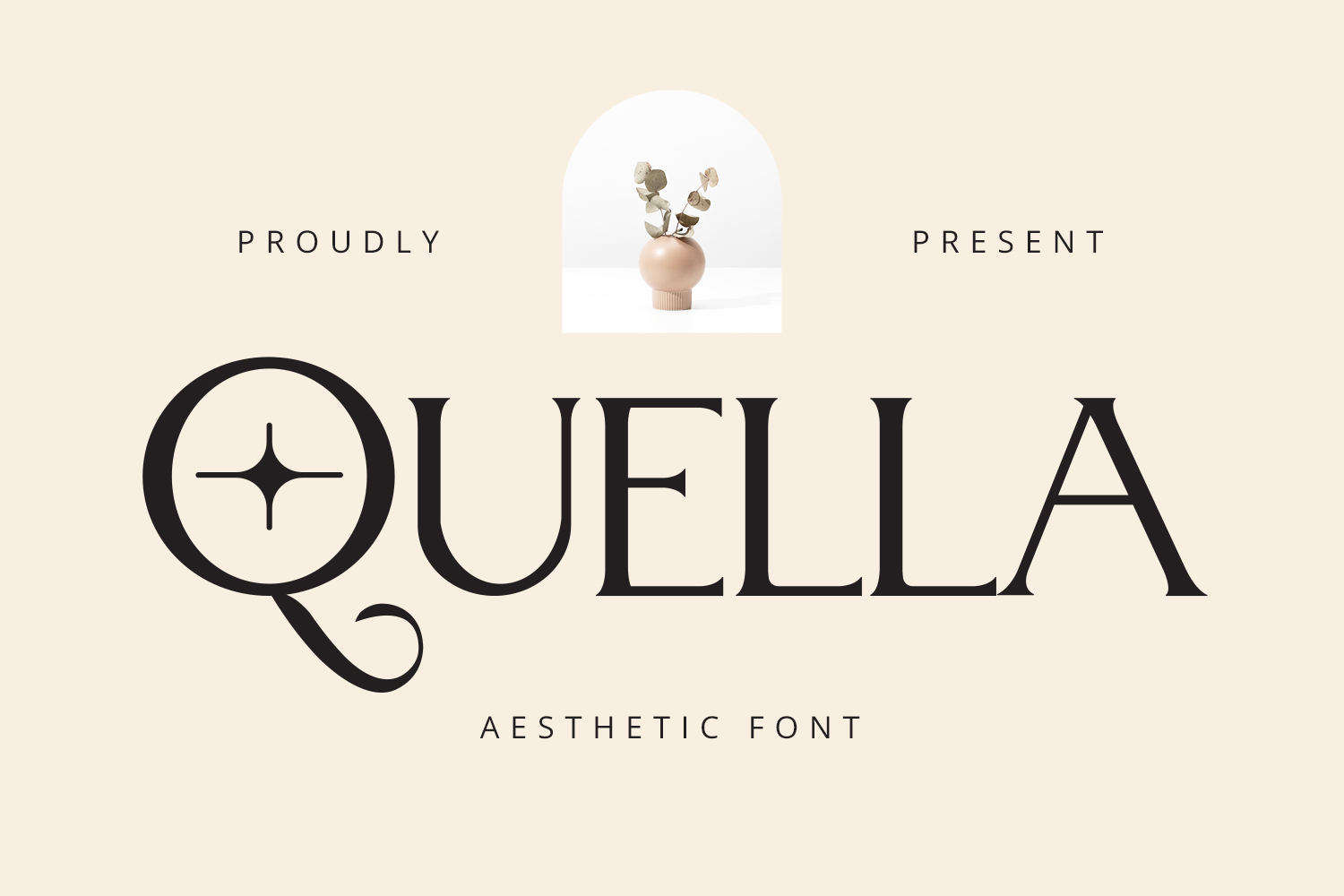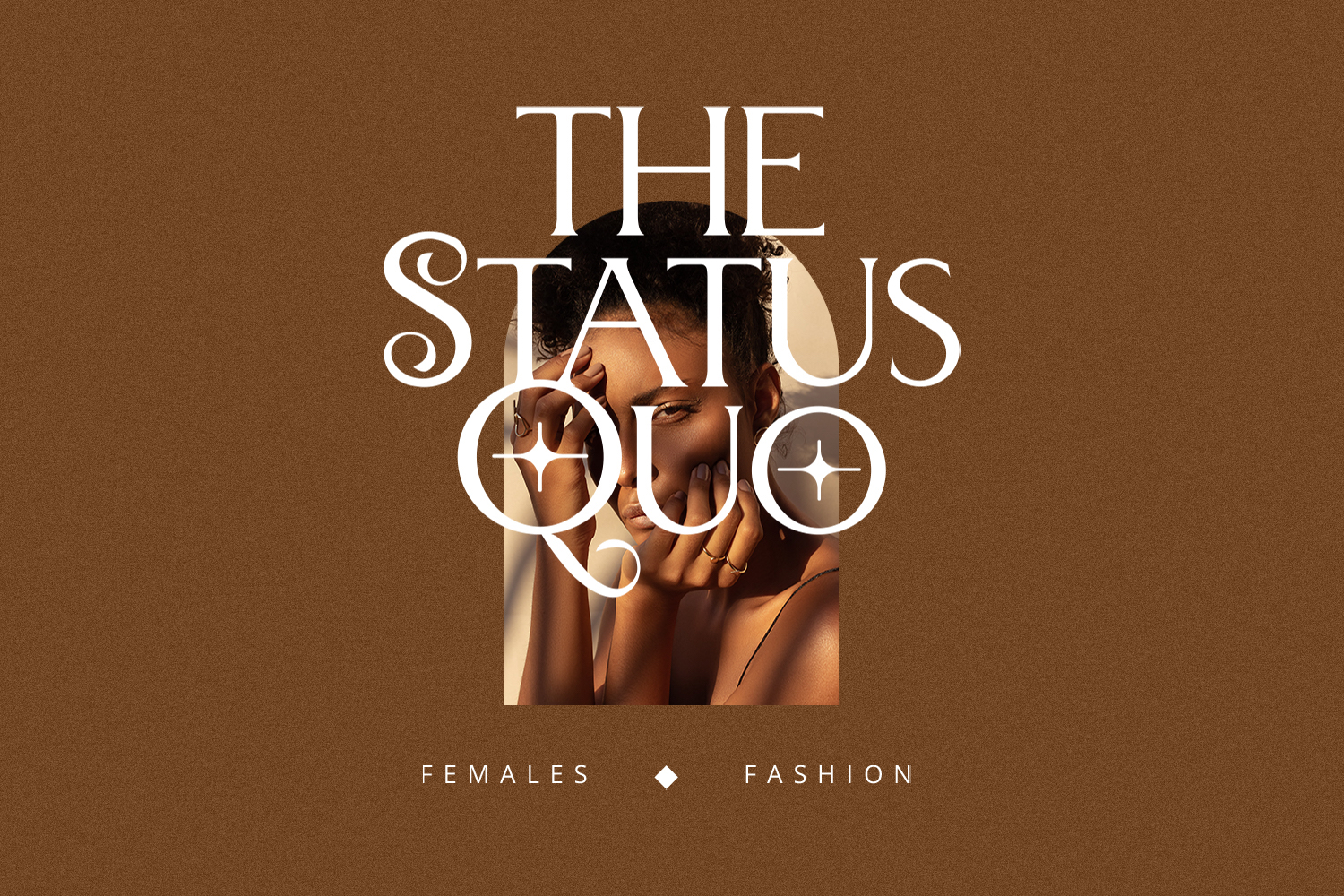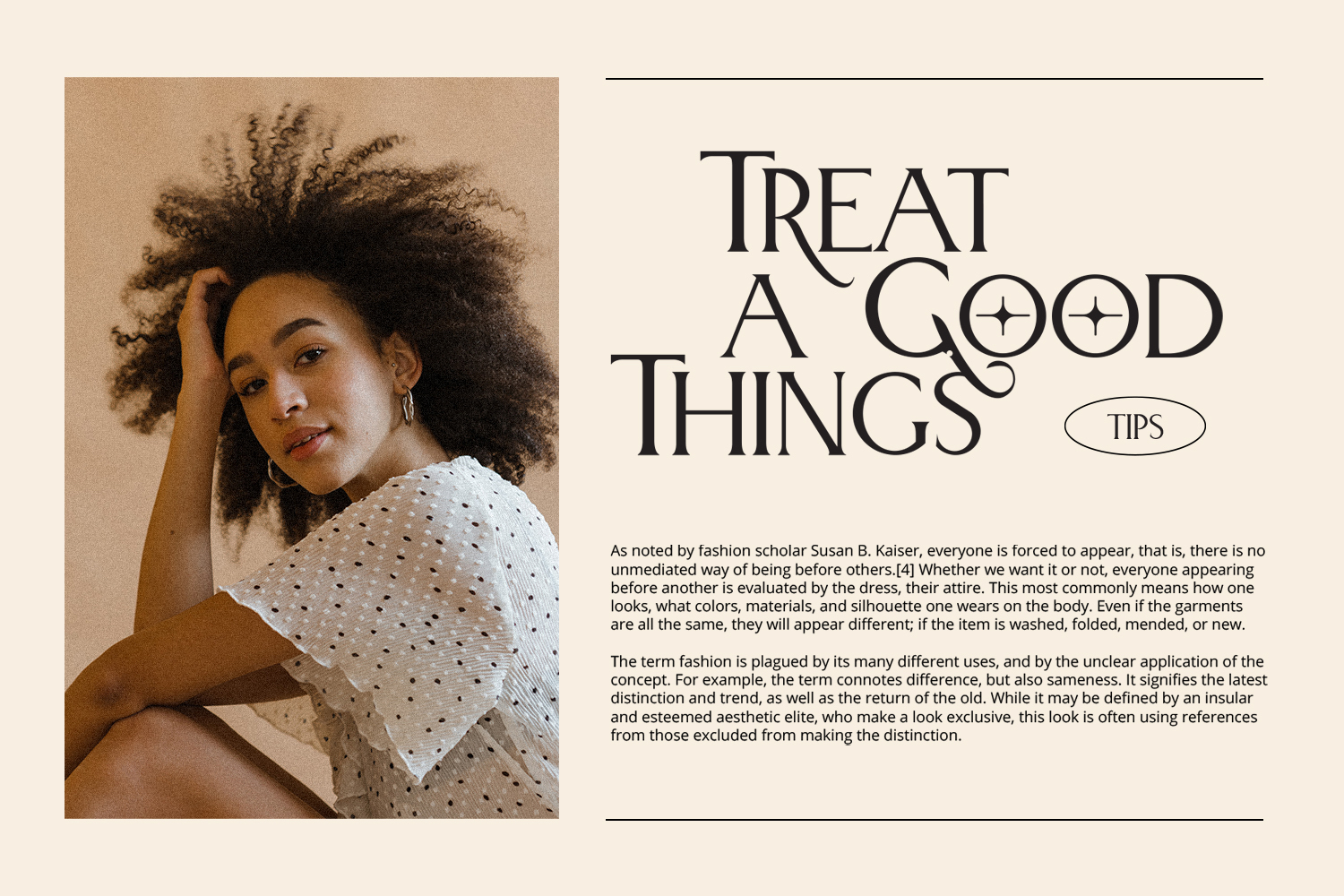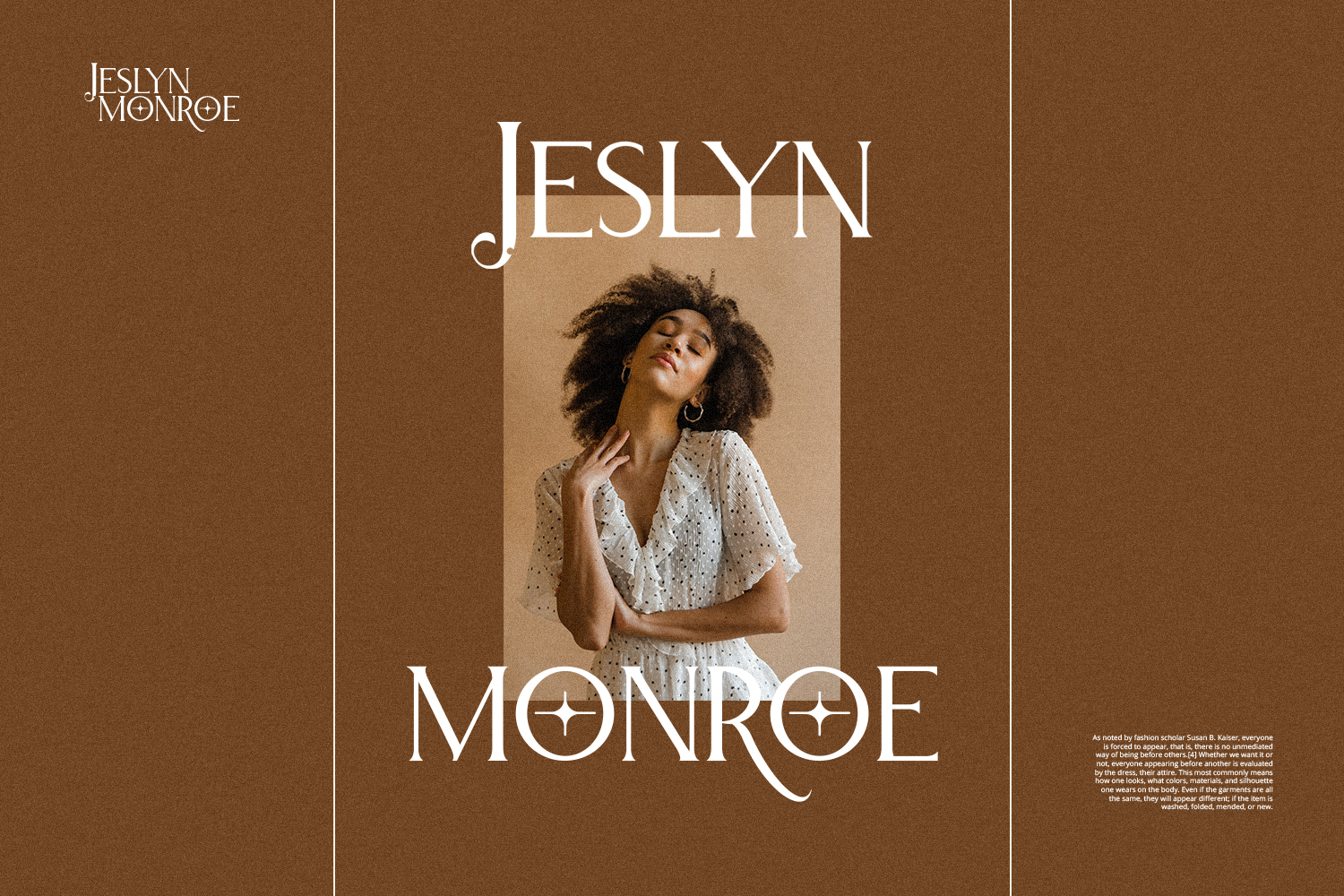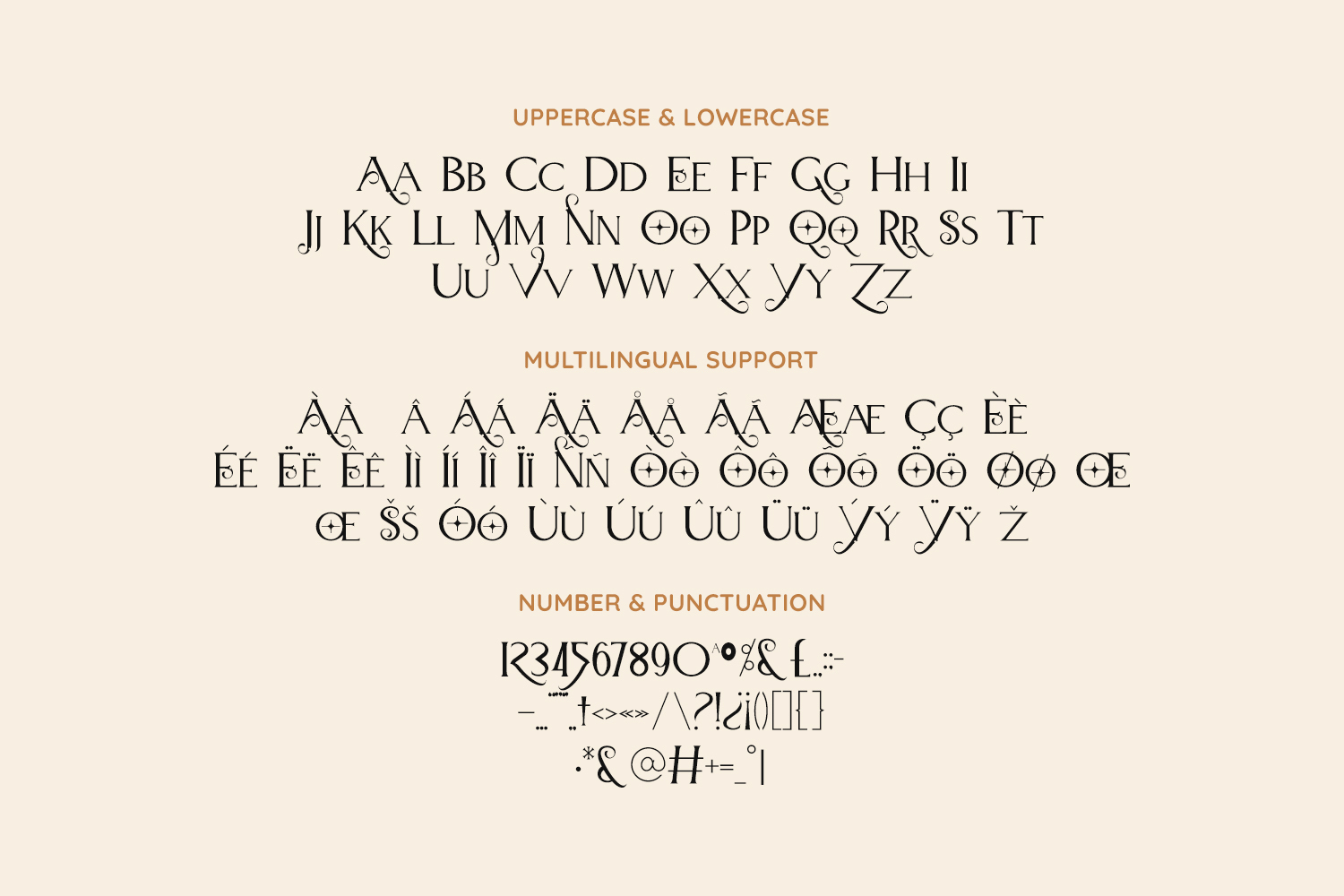
Quella
Glyphs for Quella
Quella is a sophisticated and expressive serif font designed with high-fashion elegance in mind. Its refined letterforms are accentuated by stylish curves, star-studded alternates, and distinctive swashes that add a luxurious yet modern aesthetic. This font balances classic serif structure with ornamental flair, making it perfect for branding projects, editorial headlines, and upscale design work.
With extensive multilingual support and unique stylistic elements, Quella elevates typography into visual storytelling. Its graceful alternates and elegant ligatures make it an ideal choice for fashion, lifestyle, and beauty-related designs. Whether used on packaging, logos, or social media graphics, Quella brings a refined charm that speaks of taste and artistry.